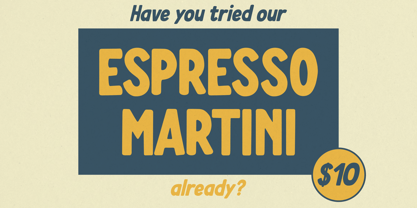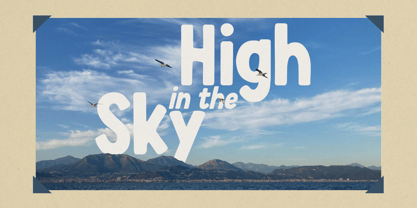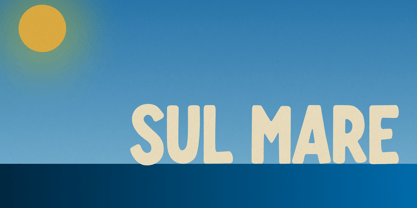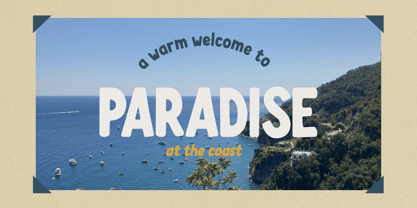
Sul Mare
by TypeR
The Sul Mare Font Family was designed by Pieter van Boekhold and published by TypeR. Sul Mare contains 2 styles and family package options.
The playful Sul Mare typeface is inspired by the long sunny days by the beach in Italy. Sul Mare is a charming, summery display typeface that brings a touch of retro and casual fun to any design. With its soft, rounded shapes and friendly curves, Sul Mare captures the personality of vintage sign painting while offering the clarity and flexibility needed for modern design projects.
The Sul Mare typeface is perfect for use on café and restaurant signs or menus, travel posters and postcards, and many more uses where this lovely nostalgic look is in place.